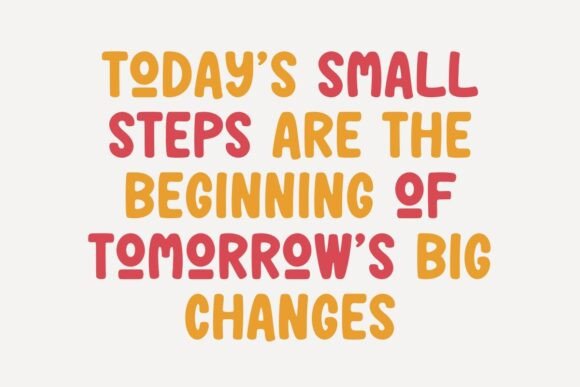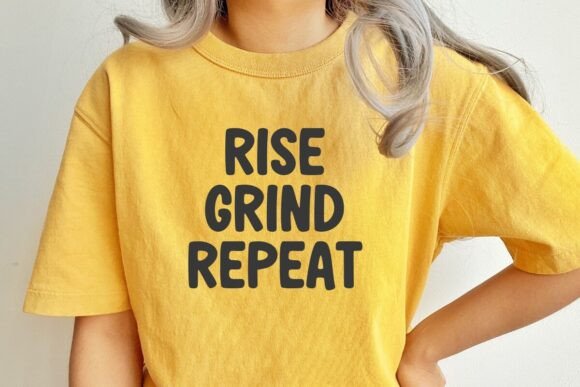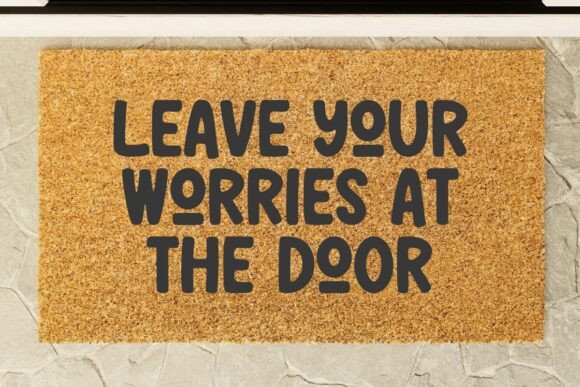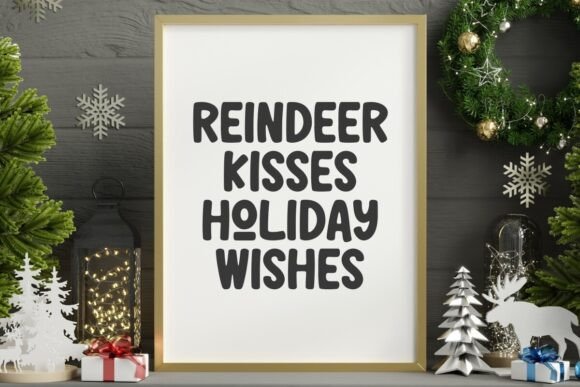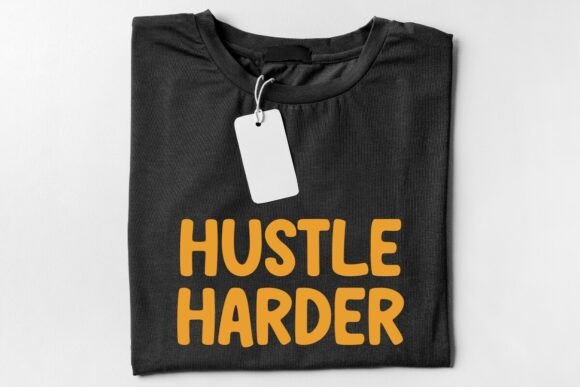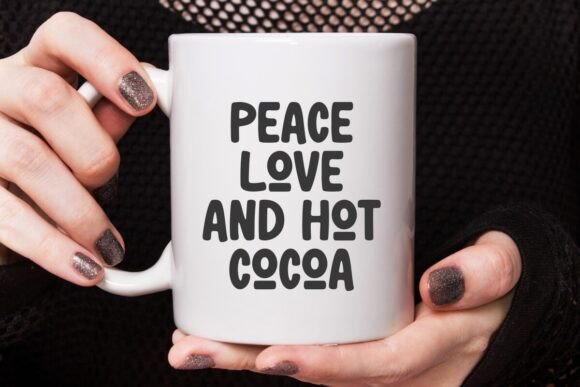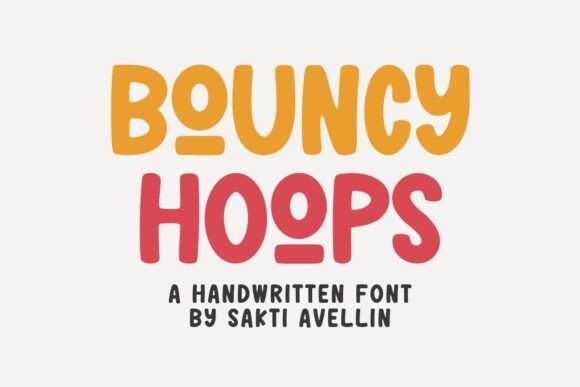
Unlocking Endless Creativity with Bouncy Hoops Font
Have you ever been in the middle of a design project, and suddenly, you’re stuck on finding the perfect font? I recall a particularly frustrating experience while working on a branding project for a trendy new cafe. My client wanted a font that was fun, energetic, and reflected the cafe’s vibrant personality. After scouring through countless font libraries, I stumbled upon Bouncy Hoops – a unique handmade display font that completely transformed my design. In this article, I’ll share my journey with Bouncy Hoops, its features, and how you can unlock its full potential for your creative projects.
What Makes Bouncy Hoops Special?
Bouncy Hoops is more than just a font – it’s an experience. Its organic flow and jovial style breathe life and brilliance into any text, making it perfect for designers, crafters, and creative hobbyists looking to add a touch of individuality and fun to their work.
An Honest Review of Bouncy Hoops
- ✅ Unique and eye-catching design that’s sure to grab attention
- ✅ Highly versatile and adaptable to various design projects
- ✅ Easy to read and understand, even in larger font sizes
- ✅ Extensive range of OpenType features, glyphs, and stylistic alternates
While Bouncy Hoops is an exceptional font, there are a few minor limitations to consider:
- 🤔 May not be suitable for very formal or professional designs
- ⚠️ Limited legibility at extremely small font sizes
The Backstory of Bouncy Hoops
Bouncy Hoops was designed with the intention of creating a font that embodied the carefree spirit of a summer day. Its creator aimed to craft a font that would bring a smile to people’s faces and inspire creativity. With its unique blend of playfulness and sophistication, Bouncy Hoops has become a go-to font for designers and crafters worldwide.
| Font Name | Bouncy Hoops Font |
| Author | Sakti Avellin |
Q: What type of projects is Bouncy Hoops best suited for?
A: Bouncy Hoops is ideal for creative projects, such as branding, social media posts, invitations, greeting cards, and home decor quotes.
Q: Is Bouncy Hoops available in different font styles?
A: Yes, Bouncy Hoops comes with various OpenType features, glyphs, and stylistic alternates, allowing you to experiment with different font styles.